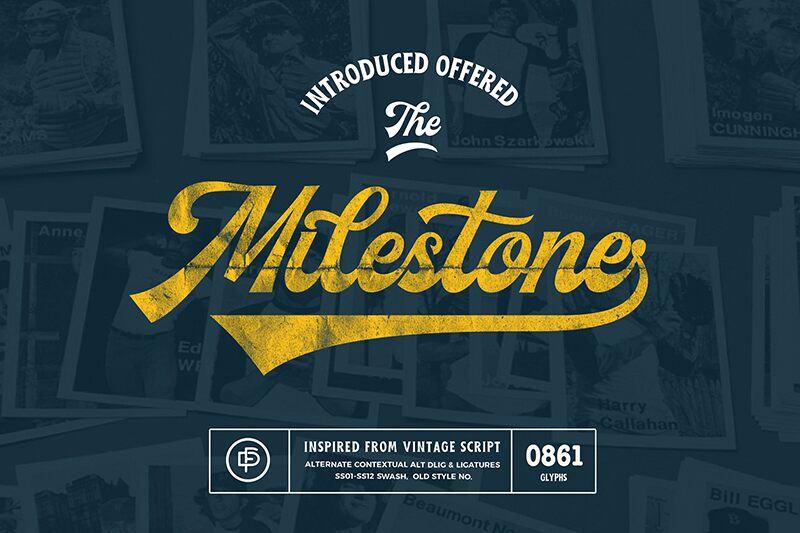
Milestone is a captivating display font that transports viewers to a bygone era. Inspired by the vintage aesthetics of baseball sports, sign painting, and old-fashioned labeling, this retro script font exudes a distinct charm and character. Its swooping, expressive letterforms and nostalgic vibe make it an ideal choice for logos, product names, packages, labels, and branding projects seeking to evoke a sense of timeless, artisanal appeal. Milestone's versatility allows it to seamlessly integrate into the design of old-fashioned coffee shops, bars, and other establishments aiming to cultivate a captivating, nostalgic ambiance.
This font's unique blend of vintage inspiration and modern appeal makes it a compelling option for designers seeking to create visually striking, memorable compositions.